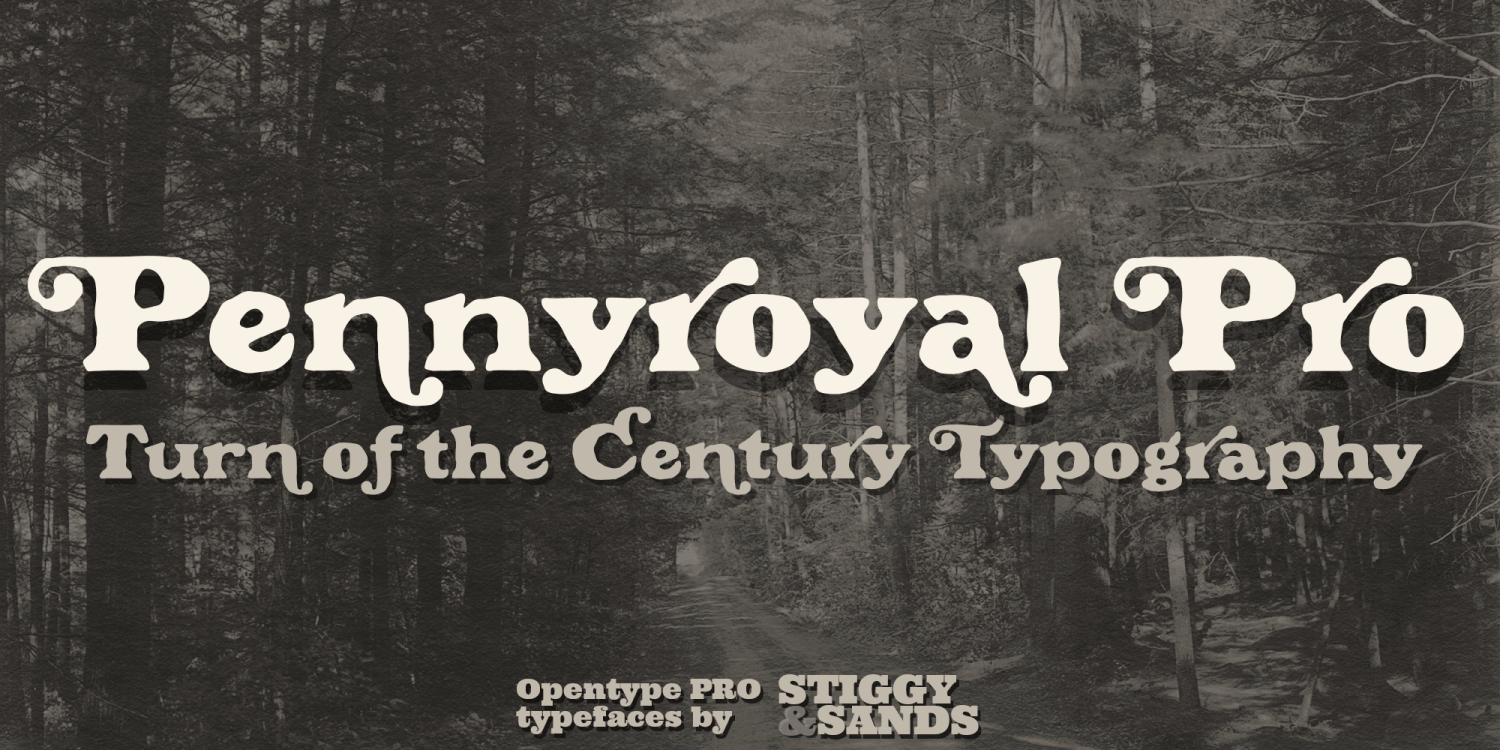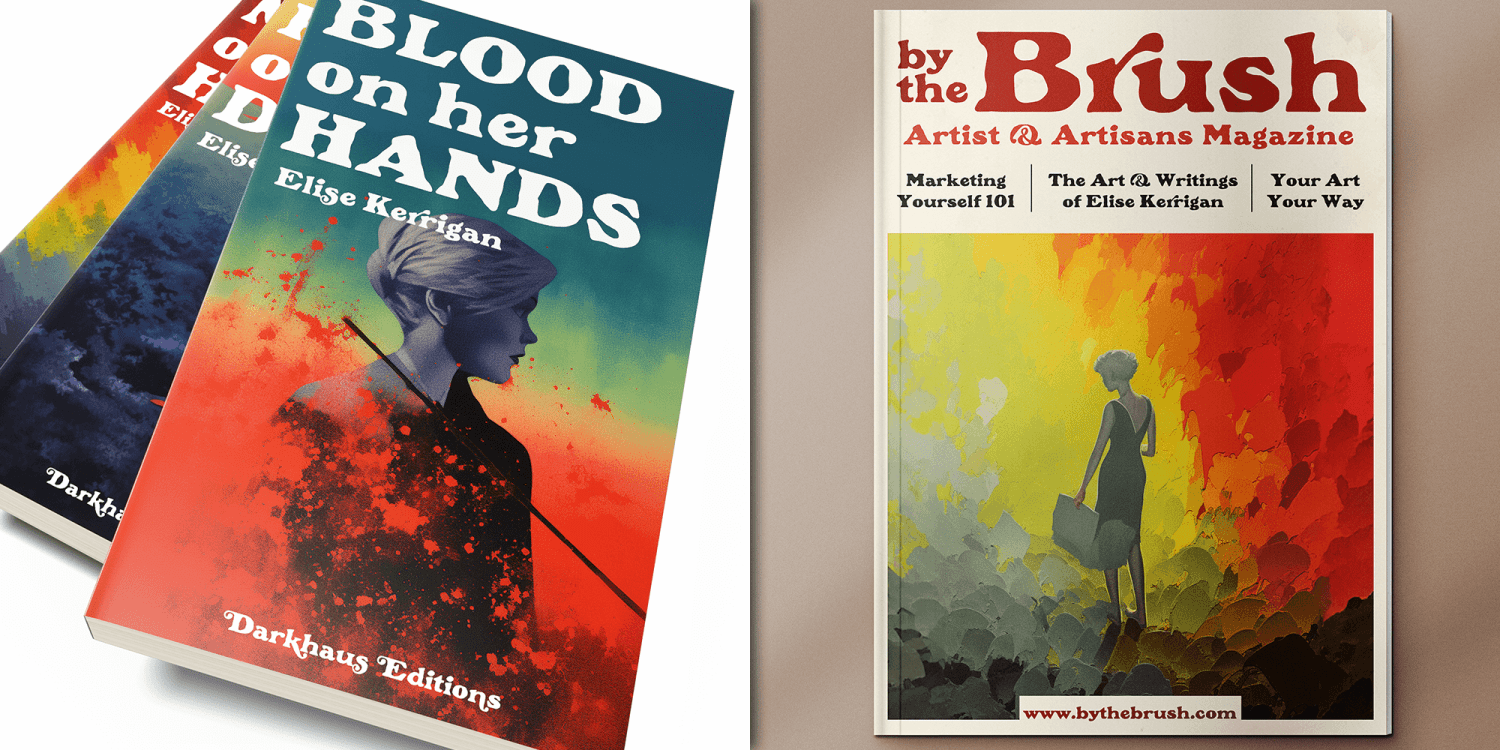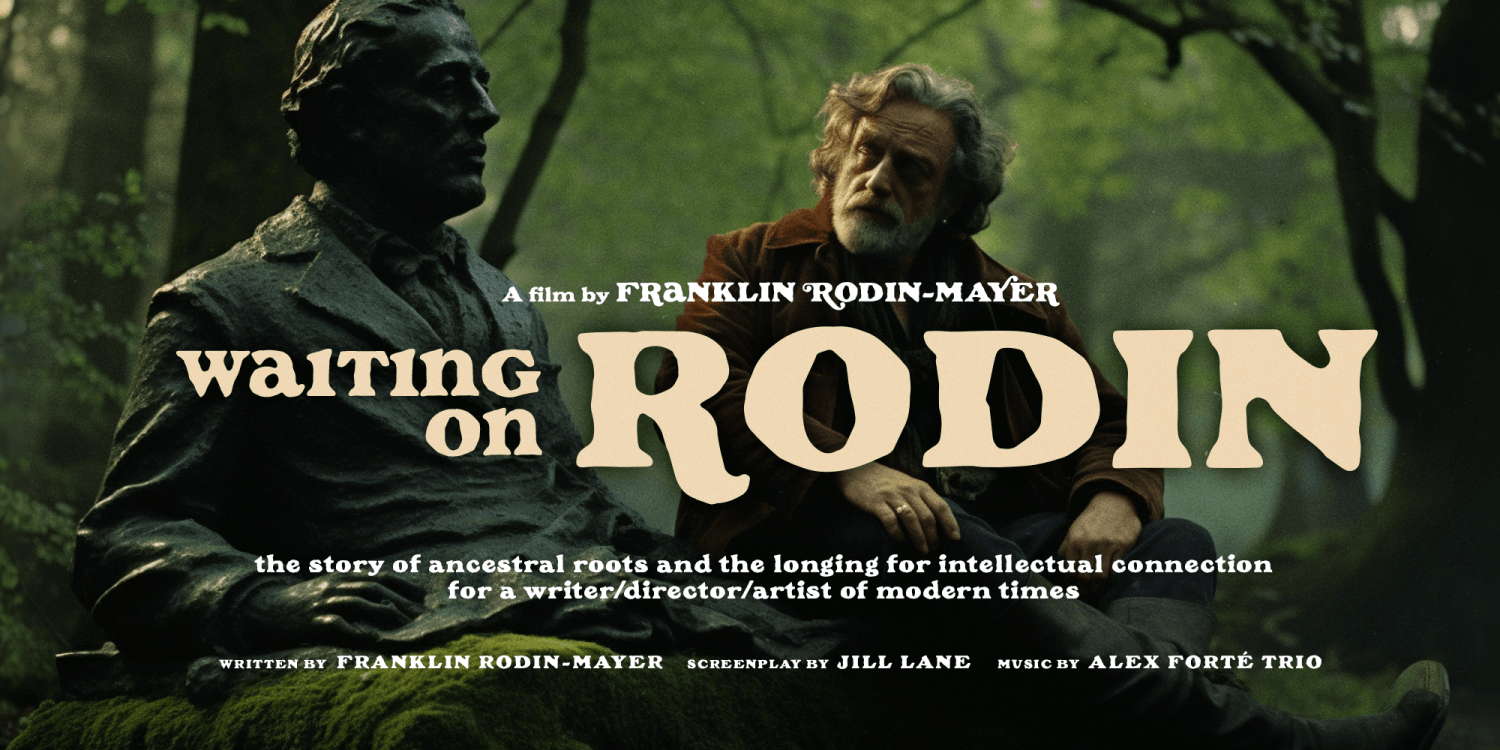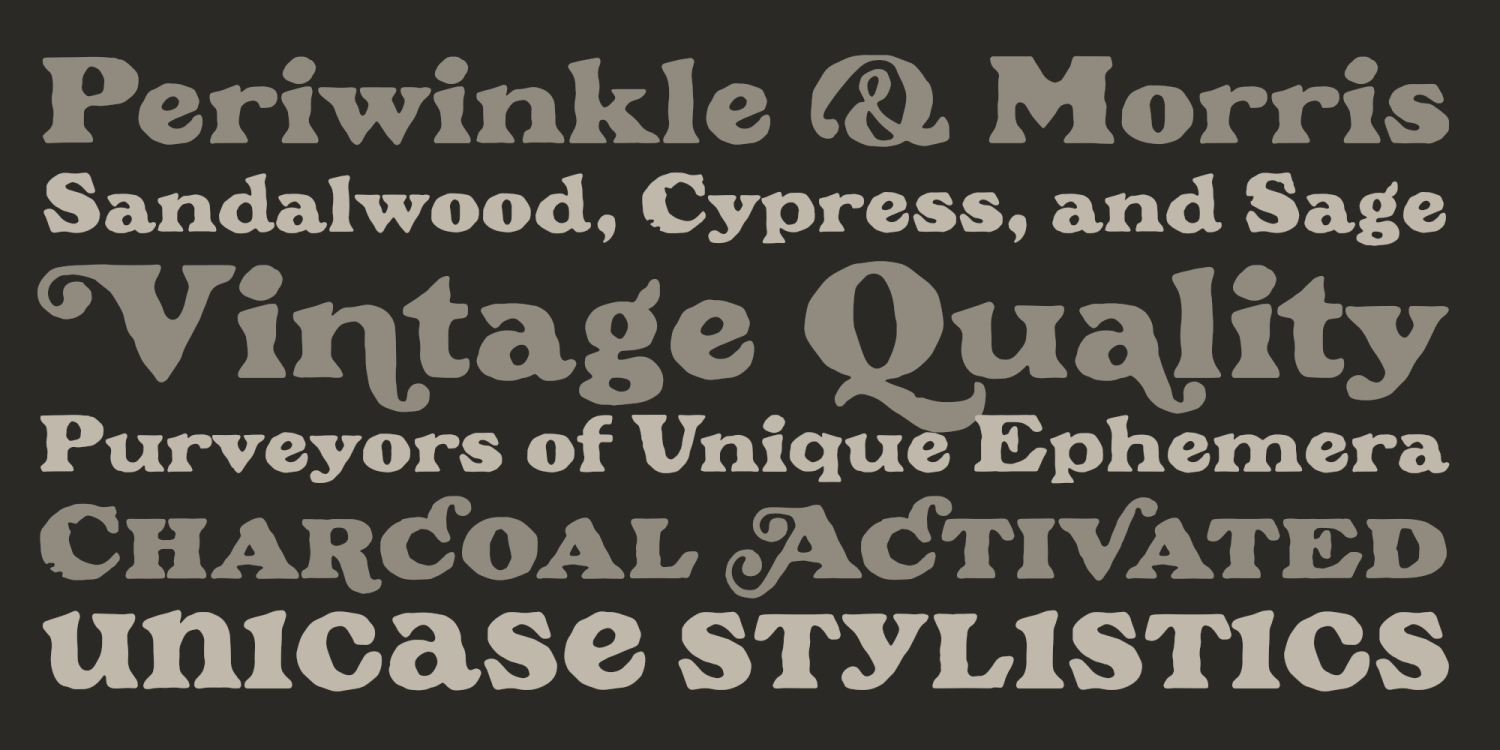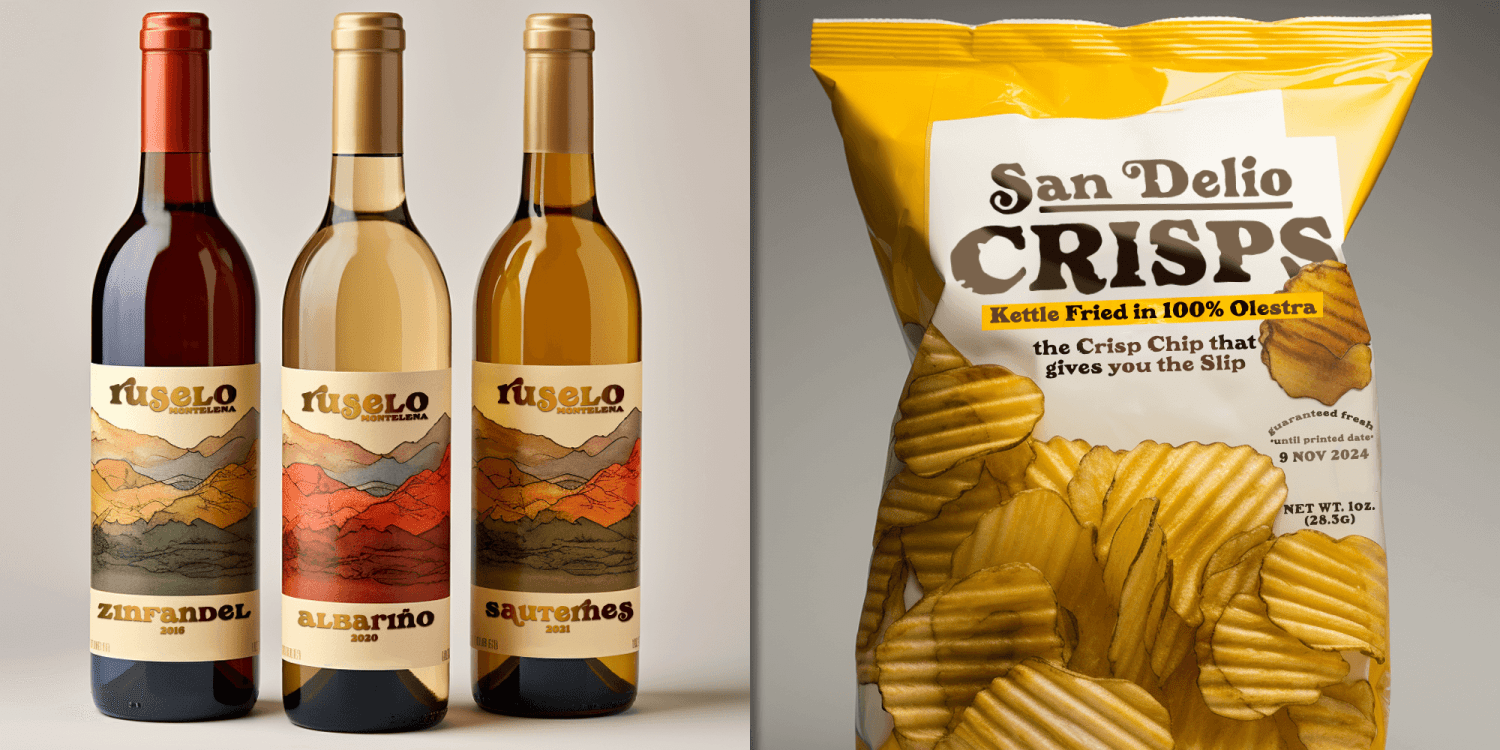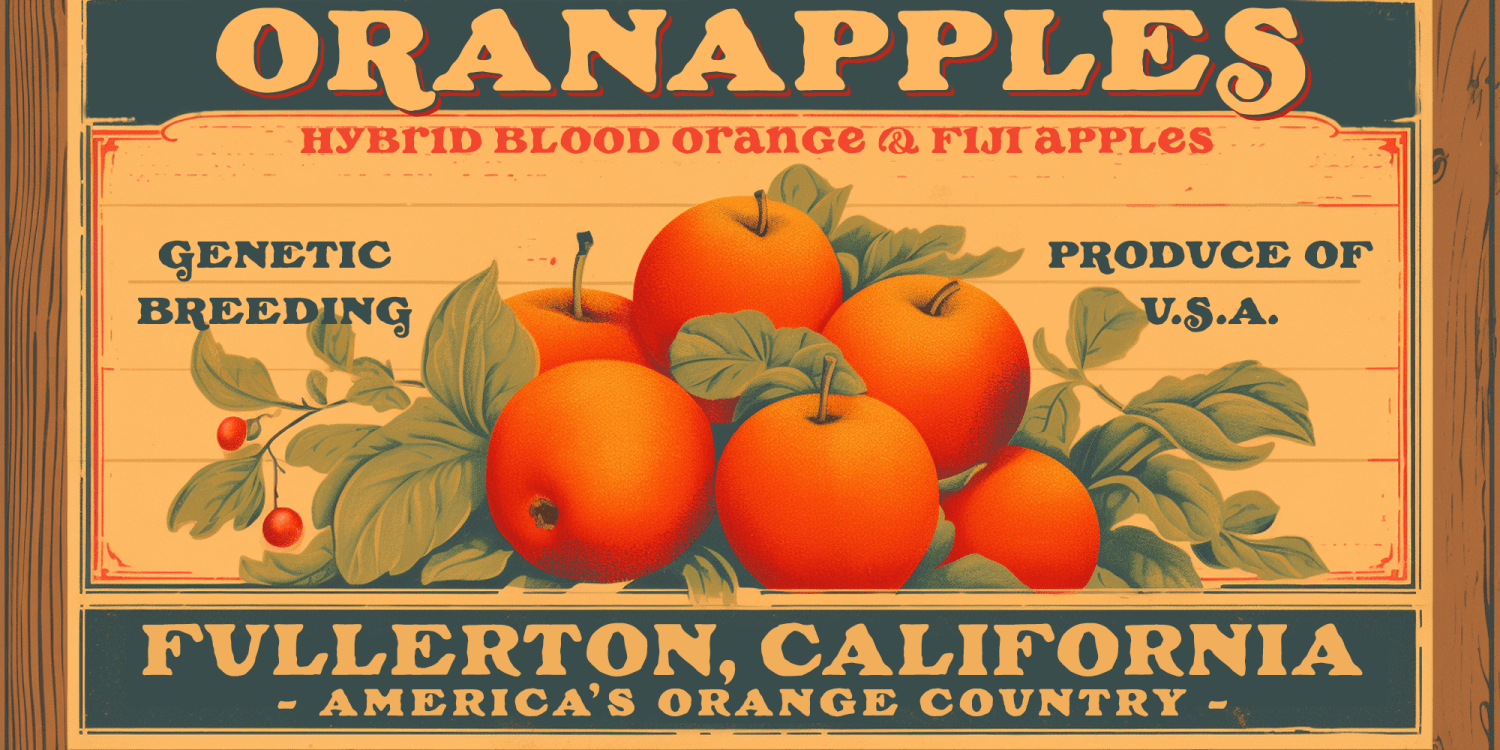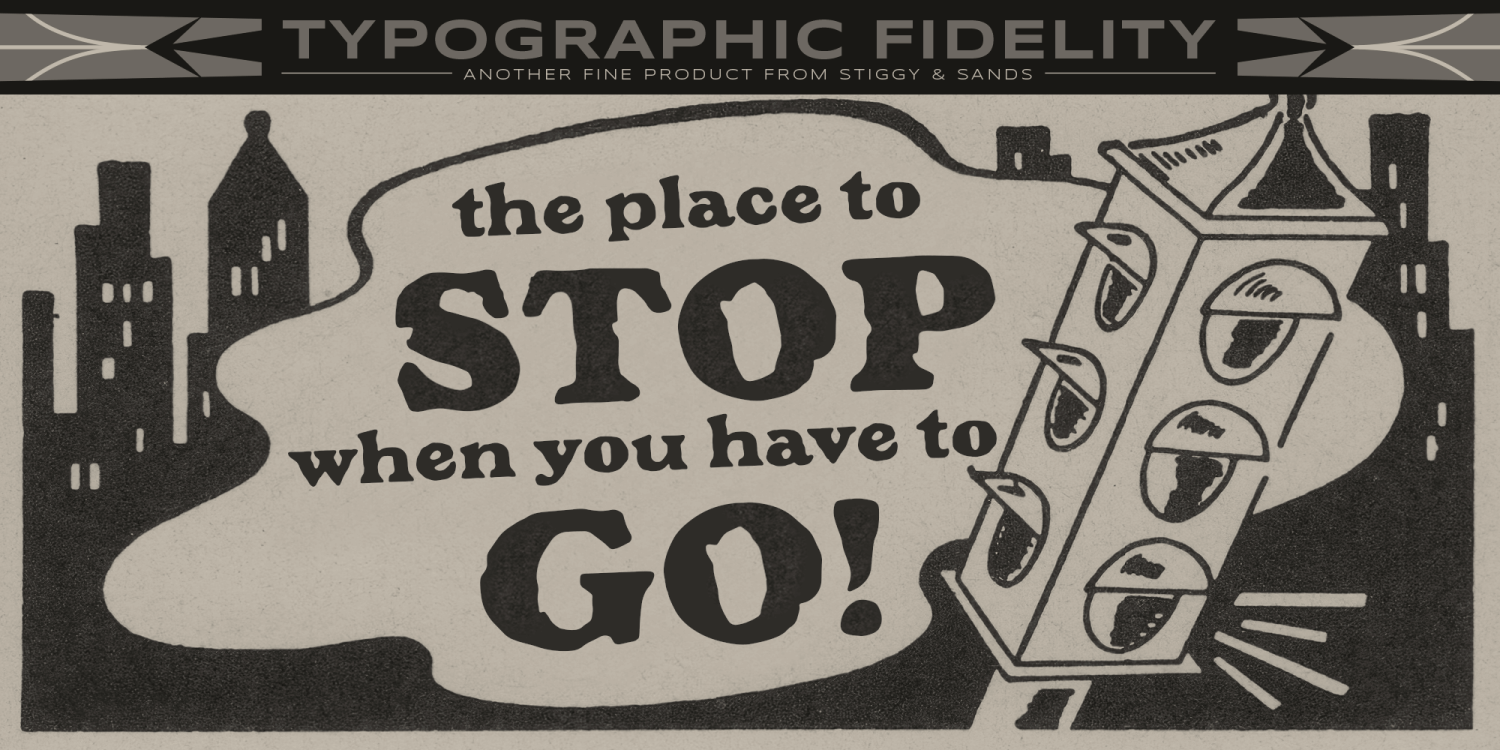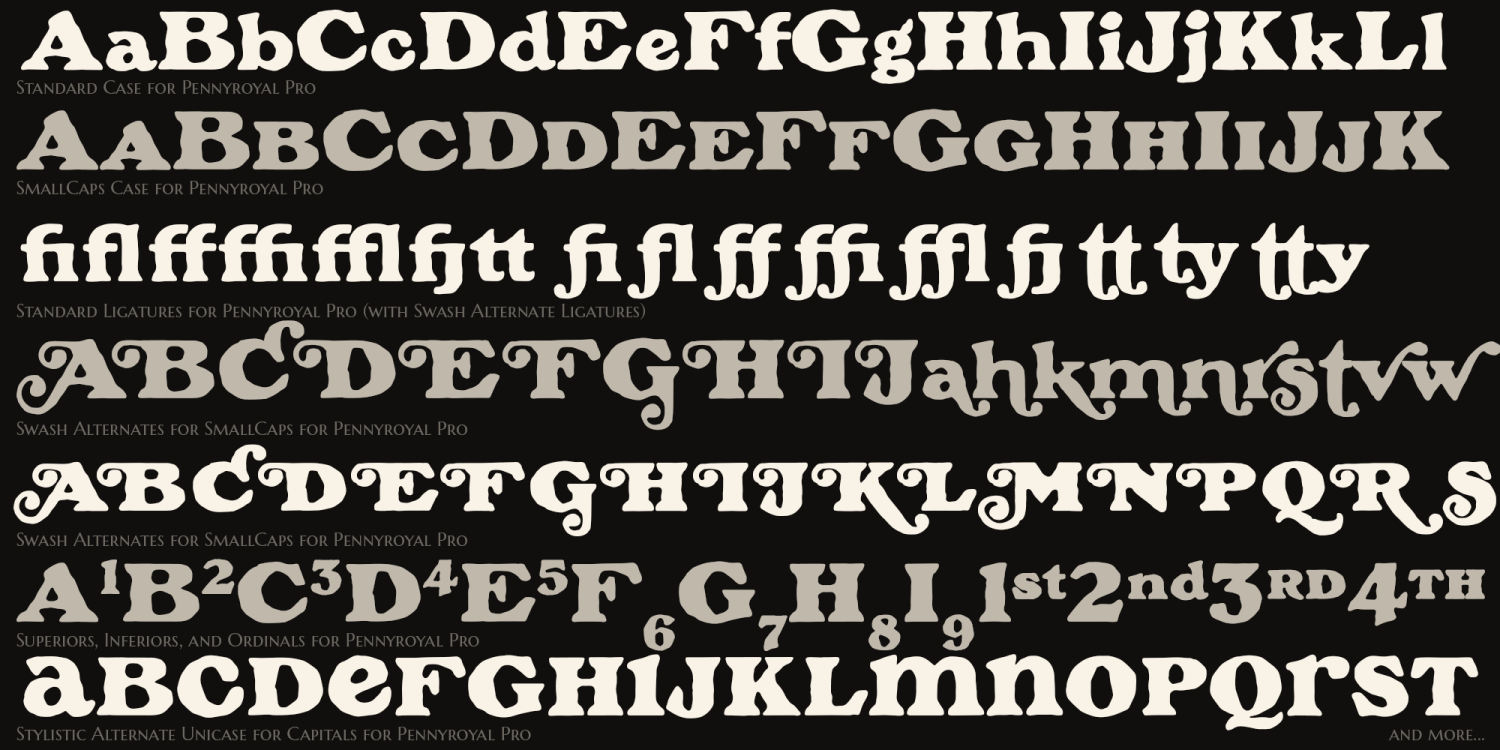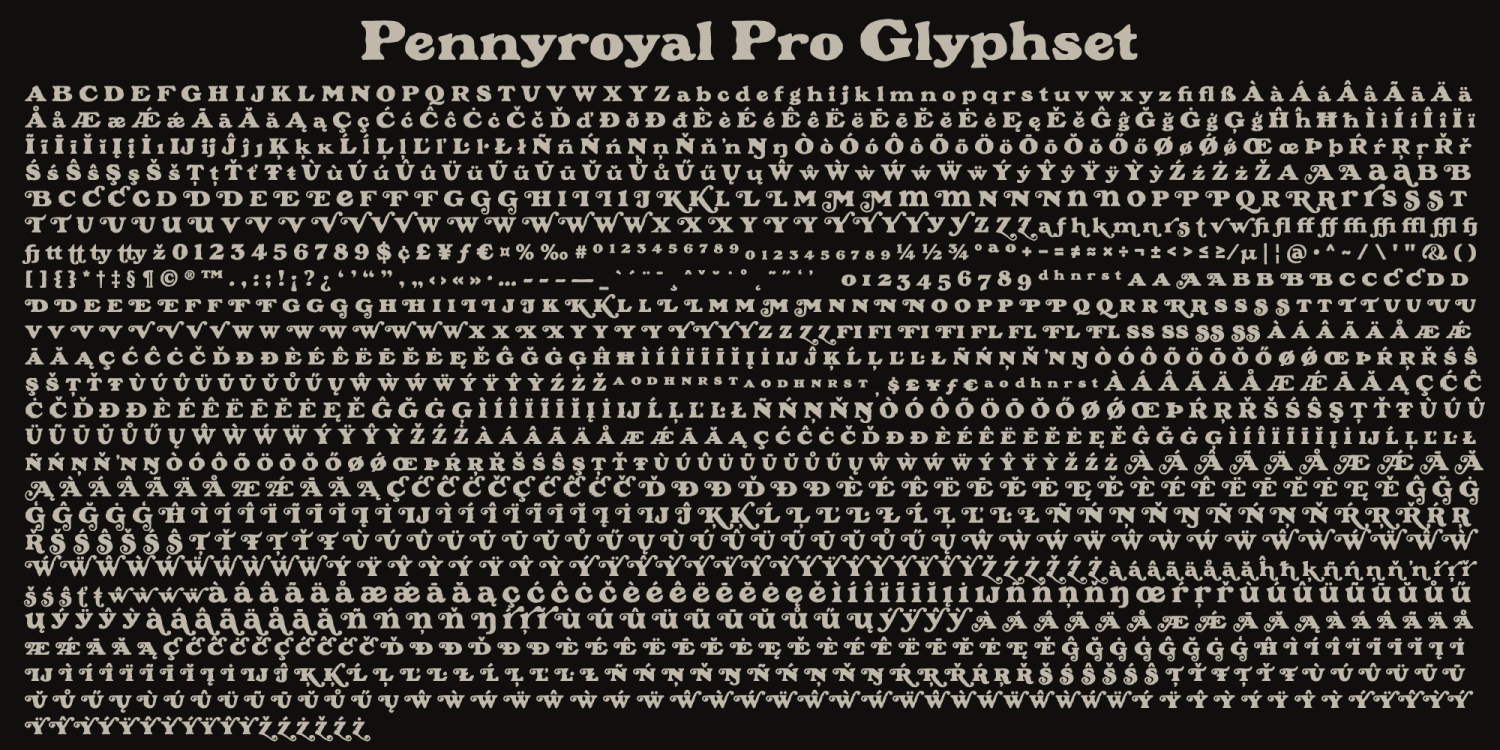
Pennyroyal Pro
Font Family by Stiggy & Sands
A Historical Revival for Modern Typesetting Flair
Pennyroyal began as a Barnhart Brothers & Spindler typeface called Plymouth Bold, first cut in 1900. What began as a straightforward rustic typestyle has been revived to include a more extensive character set. But this font wasn't just revived, it has come alive with character and personality.
Taking things further, Pennyroyal Pro adds in Unicase (stylistic alternates), Swashes (swash alternates), and a collection of grunge alternates from the original source and additional alternates included (PUA encoded). You'll find that Pennyroyal Pro contains 1476 characters.
The expanded SmallCaps option for Pennyroyal Pro gives the typestyle a more sophisticated option, while the expansive options like Unicase and Swashes allow for more uniqueness, play, and experimenting far beyond the original typeface inspiration.
Opentype features include:
• A collection of ligatures.
• Smallcaps.
• Full set of Inferiors and Superiors.
• Proportional figures and Oldstyle figure sets.
• Unicase Capitals as Stylistic Alternates.
• Swash Caps & Lowercase alternates.
• Smallcap Swash Caps & Lowercase alternates.
• Grunge Alternates for Capitals.
• Additional Swash Alternates